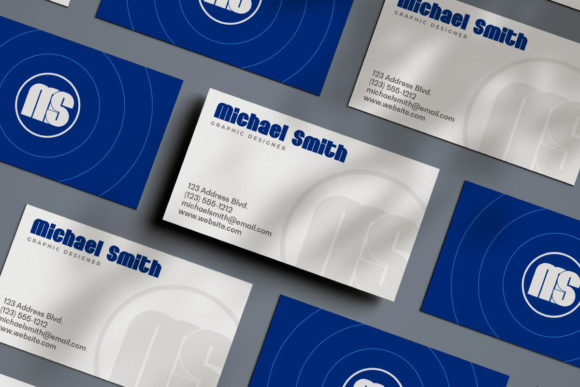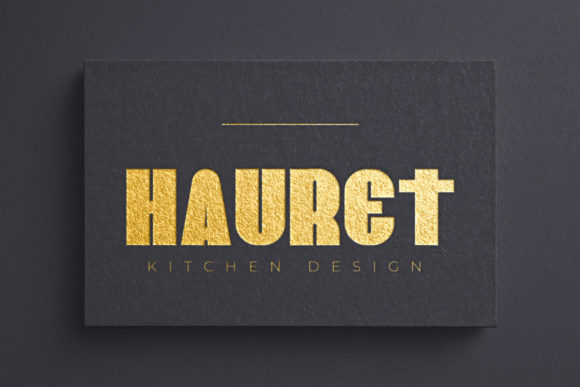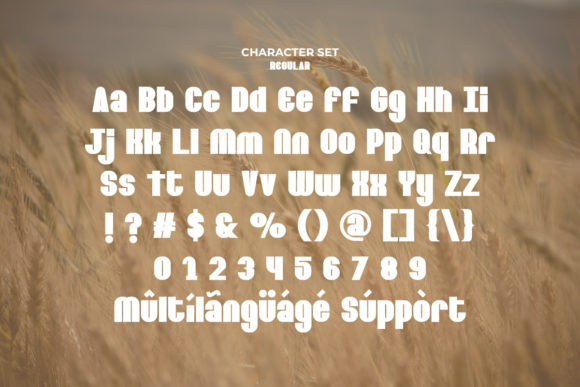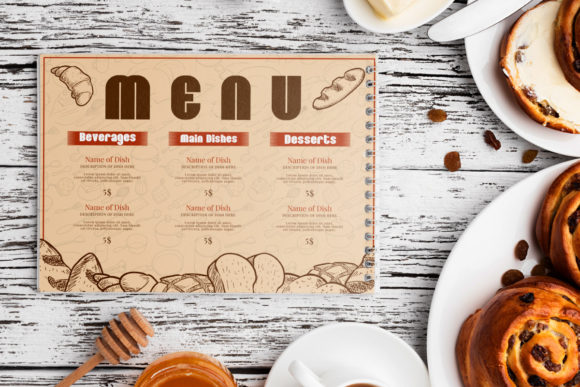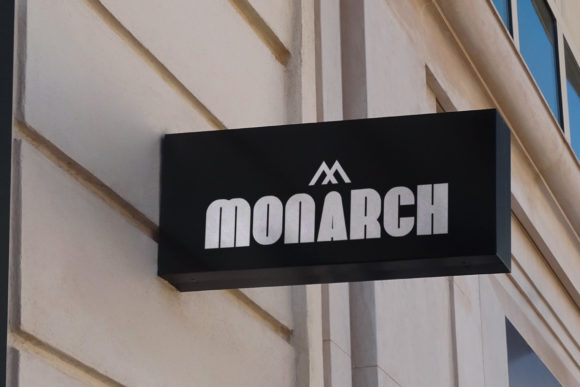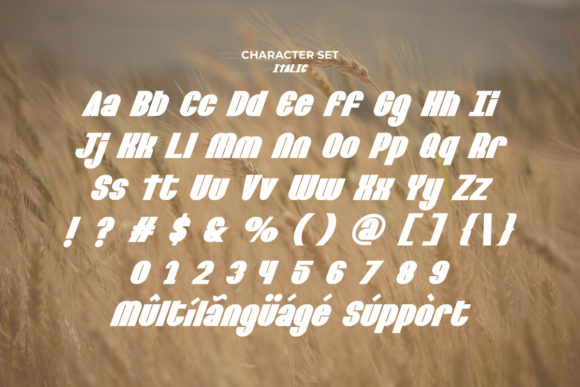
Discover the Modern Charm of Barley Round Font
In the world of typography, fonts play a crucial role in conveying messages, expressing creativity, and building brand identities. For designers and crafters, finding the perfect font can be a daunting task, especially when it comes to creating modern and visually appealing designs. This is where Barley Round Font comes into play, a sans serif font family that is taking the design world by storm with its modern and rounded face style.
What is Barley Round Font?
Barley Round Font is a sans serif font family designed to offer a fresh and contemporary look to various design projects. Characterized by its clean lines, simple shapes, and rounded edges, this font family exudes a sense of modernity and friendliness. It is perfect for designers looking to add a touch of sophistication and approachability to their work.
Key Features of Barley Round Font
- Modern and Rounded Style: The defining feature of Barley Round Font is its rounded face style, which sets it apart from traditional sans serif fonts. This unique characteristic gives it a soft and inviting appearance.
- Two Styles: Barley Round Font comes in two styles: Regular and Italic. This versatility allows designers to use the font in a variety of contexts, from straightforward texts to more dynamic and emphasized content.
- Suitable for Various Applications: Whether it’s for logos, brandings, headlines, or signage, Barley Round Font proves to be a highly versatile choice. Its legibility and aesthetic appeal make it suitable for both digital and print media.
Why Choose Barley Round Font?
There are several reasons why Barley Round Font should be a part of every designer’s toolkit:
- Legibility: The clear and simple design of Barley Round Font ensures high legibility, even at smaller sizes. This makes it perfect for body text as well as headlines.
- Uniqueness: In a sea of traditional fonts, Barley Round Font offers a unique twist with its rounded edges, making it stand out and grab attention.
- Versatility: The availability of Regular and Italic styles, along with its suitability for a wide range of applications, makes Barley Round Font a versatile choice for any design project.
- Modern Appeal: For projects that require a modern and fresh look, Barley Round Font ticks all the right boxes. Its contemporary design ensures that your work looks current and appealing.
Using Barley Round Font in Design Projects
Barley Round Font can elevate a variety of design projects. Here are some ideas:
- Logo Design: Create memorable and modern logos with Barley Round Font. Its unique style can help a brand stand out.
- Branding: Consistency in branding is key, and using a distinctive font like Barley Round can help establish a brand’s visual identity.
- Headlines and Signage: The font’s high legibility and modern appeal make it ideal for headlines and signage, both indoors and outdoors.
- Digital Media: For websites, social media posts, and digital advertisements, Barley Round Font can add a professional and contemporary touch.
Barley Round Font is a valuable addition to the world of typography, offering a modern and rounded sans serif font family that caters to the needs of contemporary design. With its two styles, versatility, and unique appeal, it’s an excellent choice for designers and crafters looking to create visually appealing and effective designs. Whether you’re working on a logo, branding, headlines, or signage, Barley Round Font is sure to make your project stand out.
- Experiment with Styles: Try out the Regular and Italic styles to see which works best for your project.
- Pair with Other Fonts: Don’t be afraid to combine Barley Round Font with other fonts to create interesting and dynamic typography.
Embark on your design journey with Barley Round Font and discover how this modern and rounded sans serif font family can transform your work.